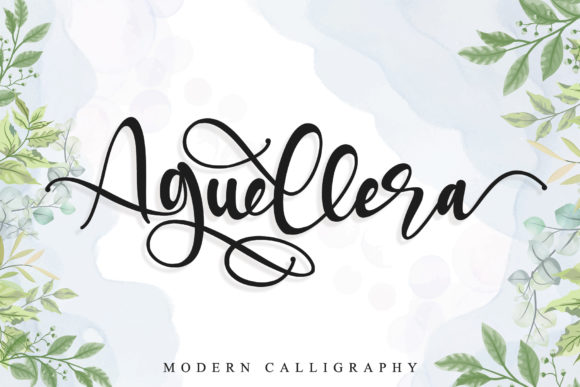
The Magical Aguellera Font: Elevate Your Designs with Elegance
What Makes Aguellera Special?
Aguellera is a carefully crafted font with a touch of elegance, making it perfect for a wide range of design projects, from branding and headings to wedding designs, invitations, signatures, logos, labels, and more! 💕 Its unique features include:
- PUA encoding for easy access to glyphs and swashes
- Varying baseline for a dynamic look
- Smooth lines and gorgeous glyphs
- Stunning alternates for added creativity
Here’s what I love about Aguellera: 🤩
- ✨ Elegant and sophisticated design
- ✅ Easy to use with PUA encoding
- 🌈 Gorgeous glyphs and swashes
- 💪 Highly versatile for various design projects
And here are some minor quirks to keep in mind: 🤔
- ⚠️ Some users may find the font a bit too ornate for certain projects
- ⚠️ Limited availability of certain characters
The Story Behind Aguellera
Aguellera was designed with the intention of creating a font that exudes elegance and sophistication. Its creator aimed to craft a font that would be both versatile and beautiful, perfect for a wide range of design projects. While the actual story behind Aguellera may be unknown, its design inspiration is clear – a blend of classic and modern elements.
| What is Aguellera Font? | Aguellera Font is a magical font, carefully created with a touch of elegance, featuring PUA encoding, varying baseline, smooth lines, gorgeous glyphs, and stunning alternates. |